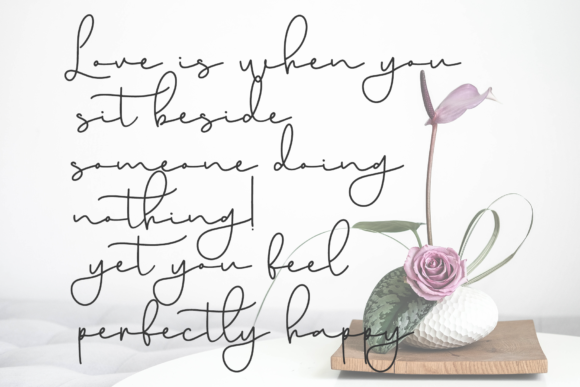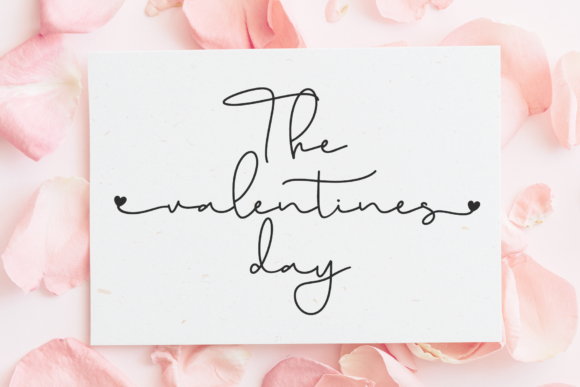
Liefde Font
db-ku.com - Script & Handwritten -- Liefde is a whimsical script font with a relaxed theme, featuring a lovely style and love alternates. This font is PUA encoded which means you can access all of the glyphs and love swashes with ease!